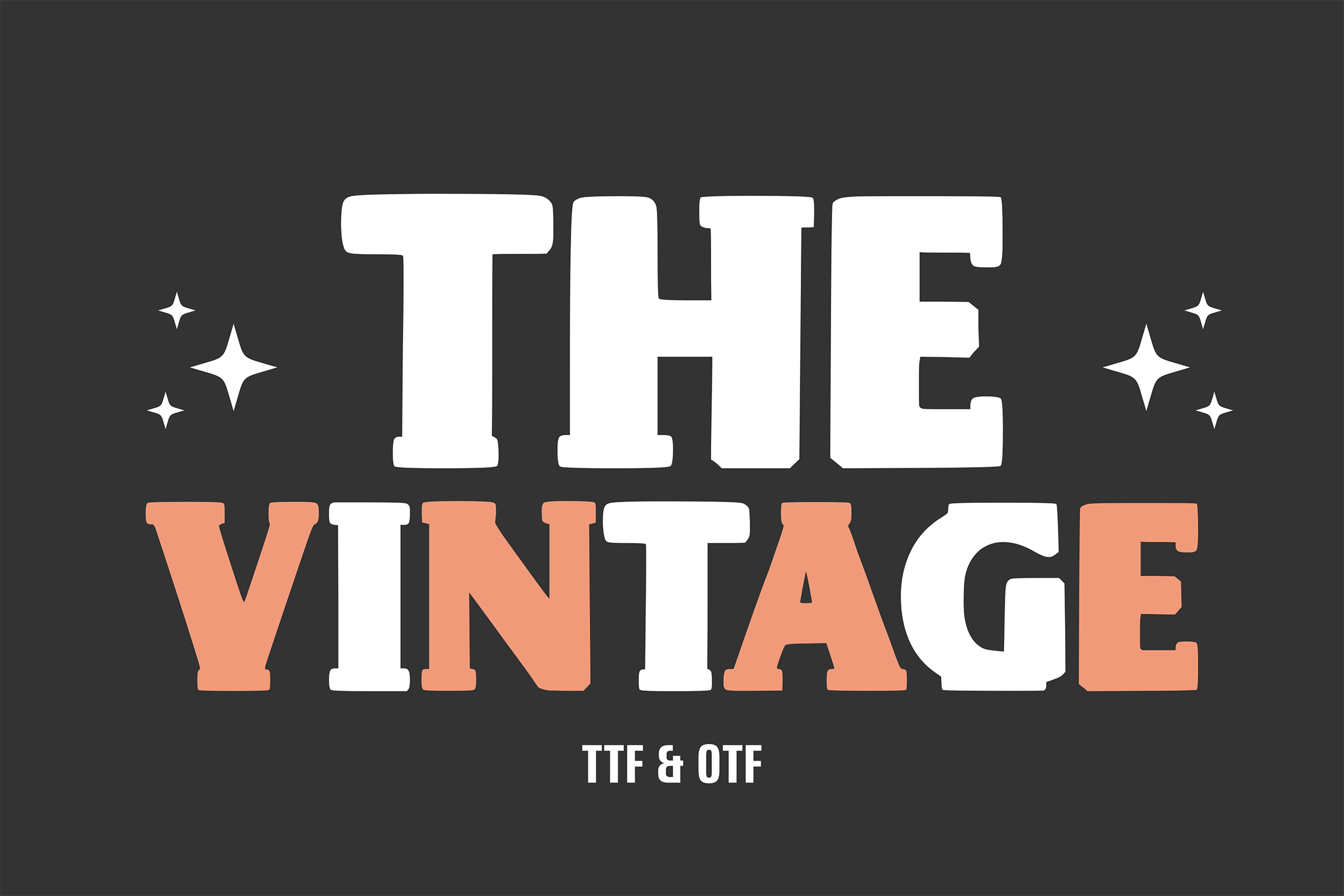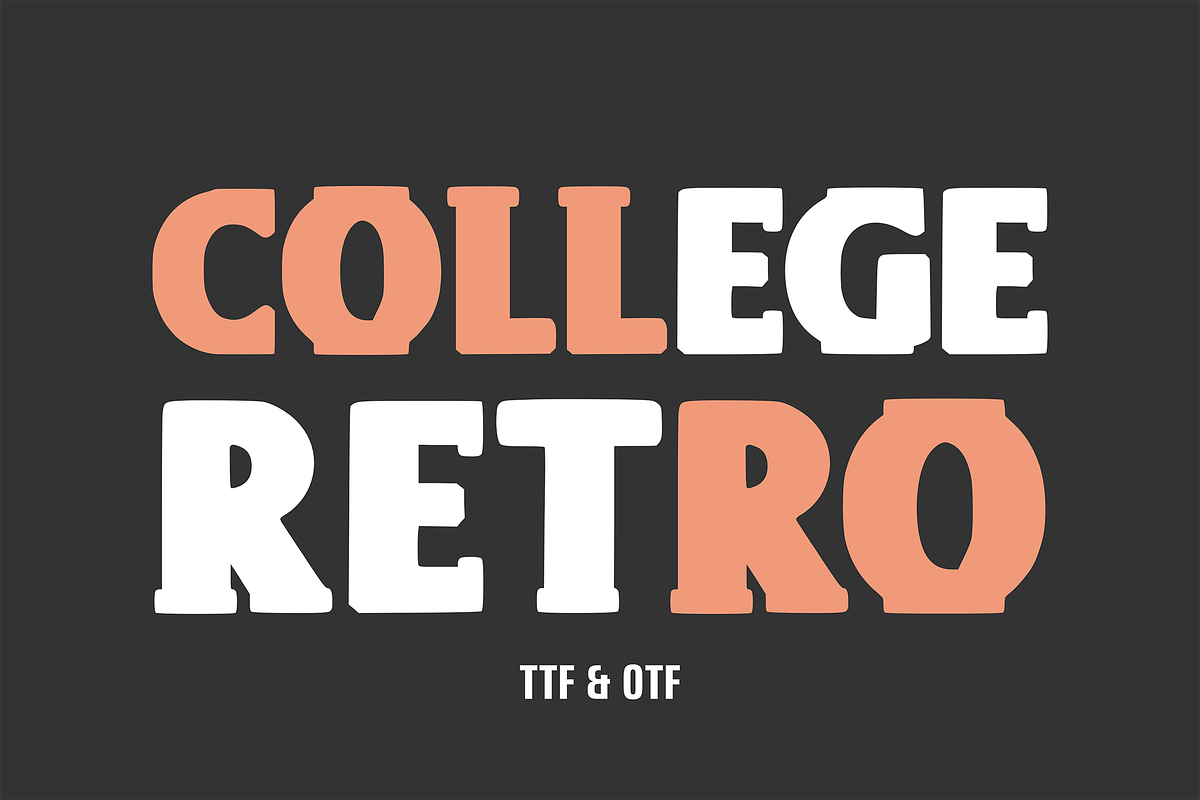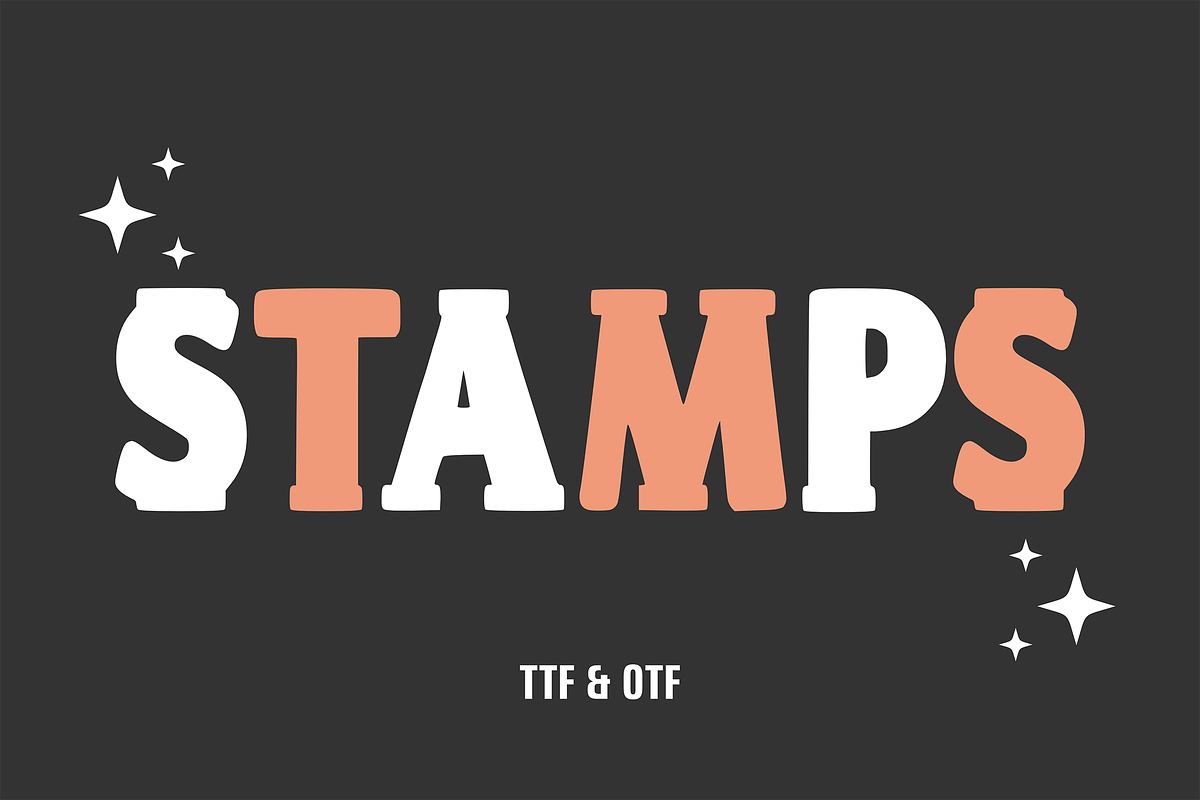
The Vintage - Retro Font Types
Vintage fonts are retro fonts with a vintage style. Inspired by the retro typefaces and typography of the 70s and 80s, anything written with this font is instantly recognizable and will catch the eye. This font has a unique shape where each corner is stiffer and more rounded. Use this display font to add a special retro touch to any design idea you can think of.